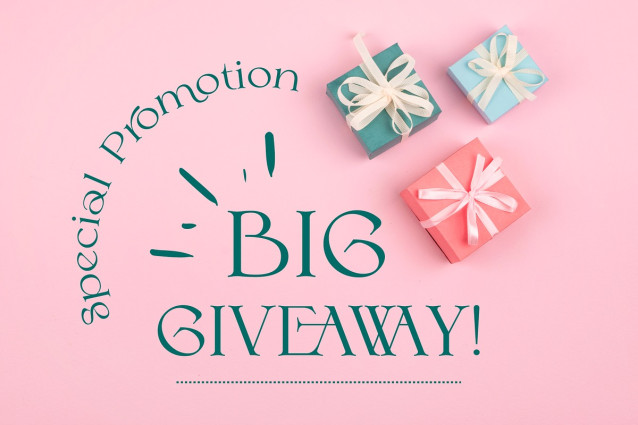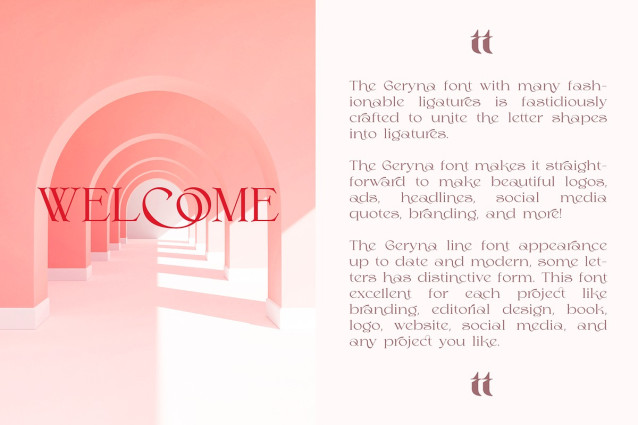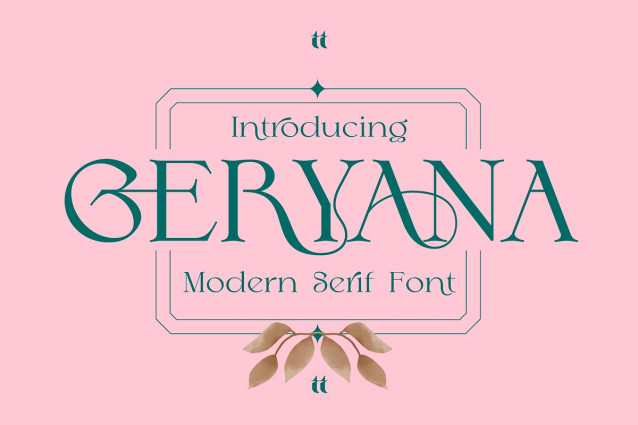
Geryna Font
Geryna Font with trendy glyphs is carefully designed to combine letter shapes into glyphs. Geryna font makes it easy to create beautiful logos, ads, headlines, social media quotes, branding, and more!
Geryna font looks modern and youthful, some letters have unique shapes. This font is suitable for any project such as branding, editorial design, books, logos, websites, social media, and any project you like.